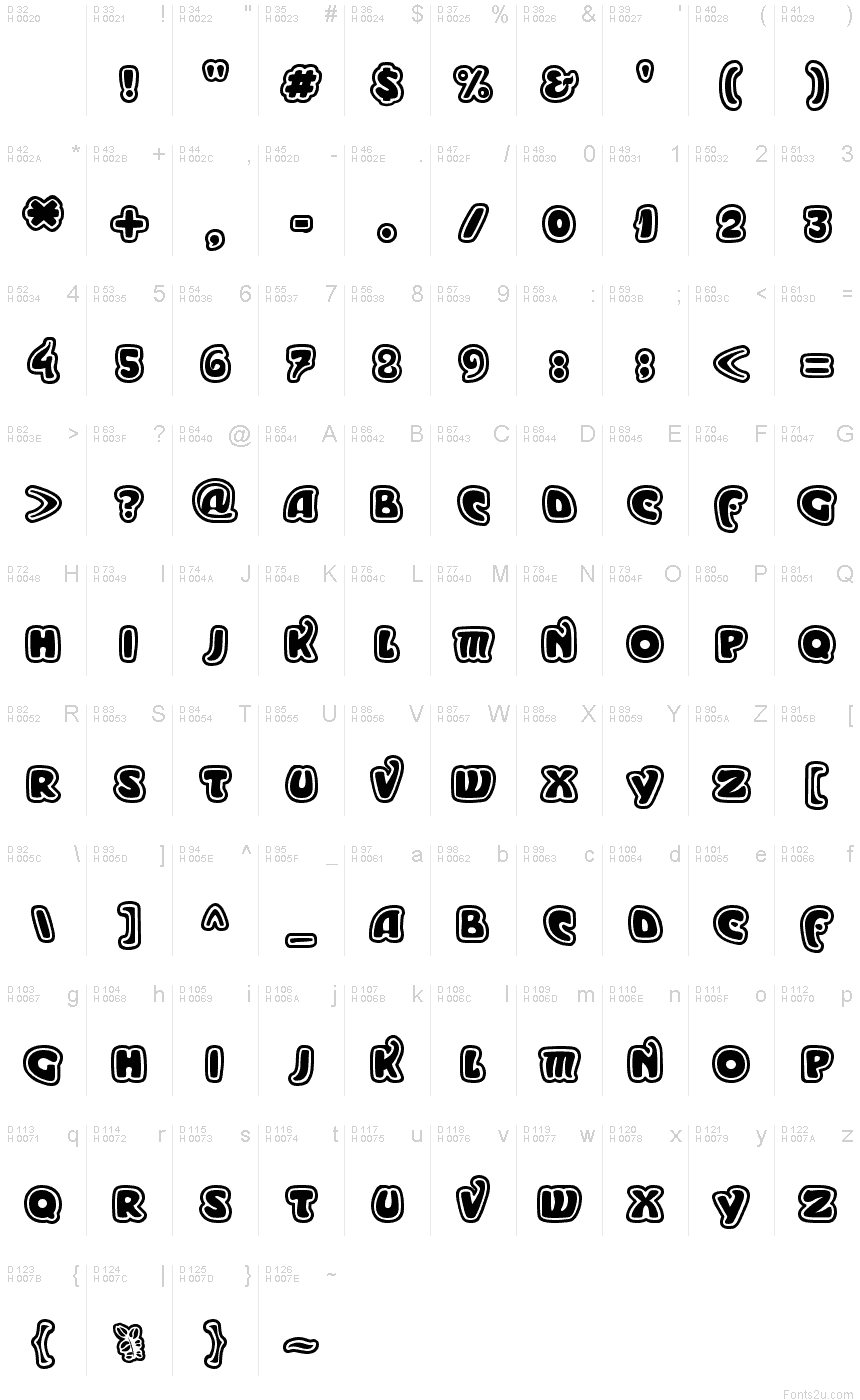
Moderno Outline
Moderno Outline by Tomoyuki Watanabe is a free outline display font shaped like inflated letterforms with broad rounded corners and a soft, almost molded silhouette. The double-contour treatment gives each character a puffy edge and a compact graphic mass, so the design feels more like bold signage than a plain outlined alphabet.
That swollen profile makes sense on poster titles, sticker graphics, toy packaging, event flyers, and short logo-style headlines where the lettering needs a cheerful, chunky presence. It can also frame cafe menus or shop signs, especially when you want big, rounded shapes that read as graphic objects as much as text.